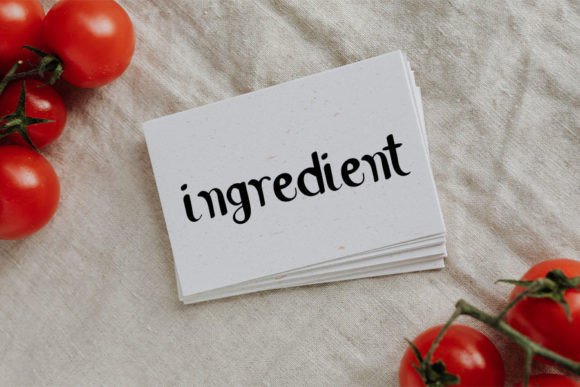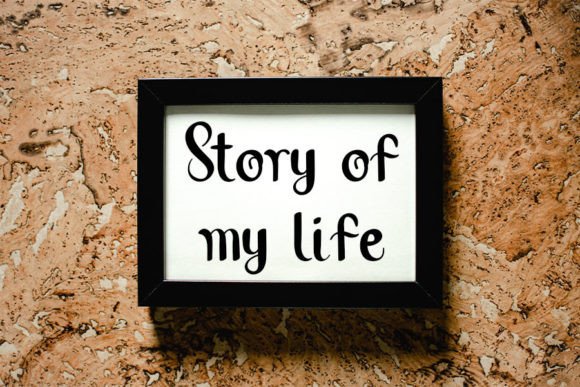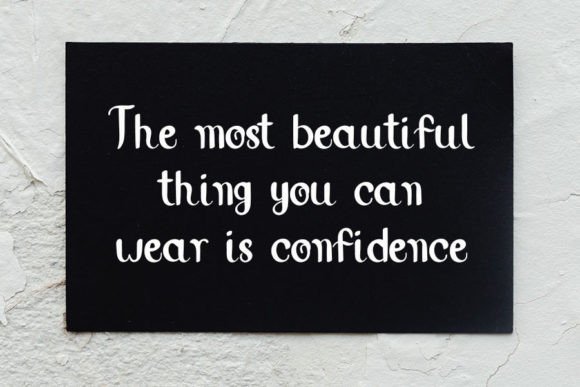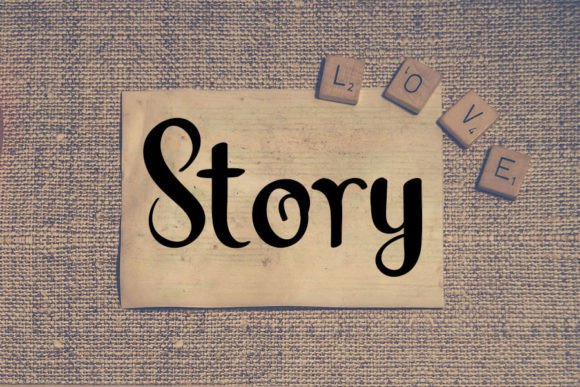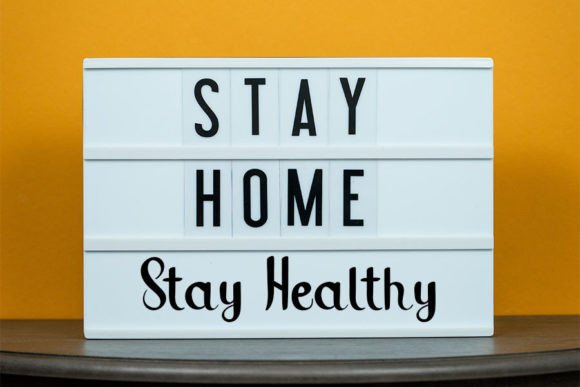
Introduction to Little Samurai Font
You know that feeling when you’re working on a creative project and you just can’t seem to find the right font to bring it all together? The words feel flat, the text looks dull, and no matter what you do, you just can’t seem to capture the essence of your vision. That’s where the Little Samurai Font comes in – a friendly handwritten font that’s designed to add a touch of class and sophistication to any design project.
With its calligraphic influences and contemporary feel, the Little Samurai Font is the perfect design resource for anyone looking to elevate their creative work. Whether you’re working on a free download or a high-quality print project, this font is sure to make a lasting impression. And the best part? It’s available for free, making it an accessible and valuable resource for designers of all levels.
Key Features of Little Samurai Font
- High-quality, detailed design perfect for creative projects requiring a unique touch.
- Unique, hand-drawn style with intricate details that will add a touch of elegance to your design project.
- Perfect for use in various design contexts, including logos, icons, typography, and more.
Honest Review: Little Samurai Font
- ✨ High-quality design that’s perfect for a creative project
- ✨ Versatile and can be used in various design contexts
- ⚠️ Limited character set, which may not be ideal for extended text
- ⚠️ Not as widely supported as some other fonts, which can cause compatibility issues
Overall, I’m impressed with the Little Samurai Font. It’s a great design resource for creatives who want a high-quality, unique font for their projects. While it may have some limitations, it’s definitely worth considering for your next design project.
Tips for Getting the Most Out of Little Samurai Font
Experiment with different font sizes and colors to create a unique design. Use the font in combination with other design elements, such as images or graphics, to add depth and interest to your project.
Little Samurai Font is ideal for creative projects that require a bold, eye-catching font. Use it for titles, headings, or body text to add a touch of elegance and sophistication to your design. It’s also suitable for logos, business cards, or other marketing materials where a unique font is required.
Yes, the Little Samurai Font is designed to work well with transparent backgrounds. Since it has a transparent background, you can use it with any background color or image, making it a versatile design resource for your creative project.